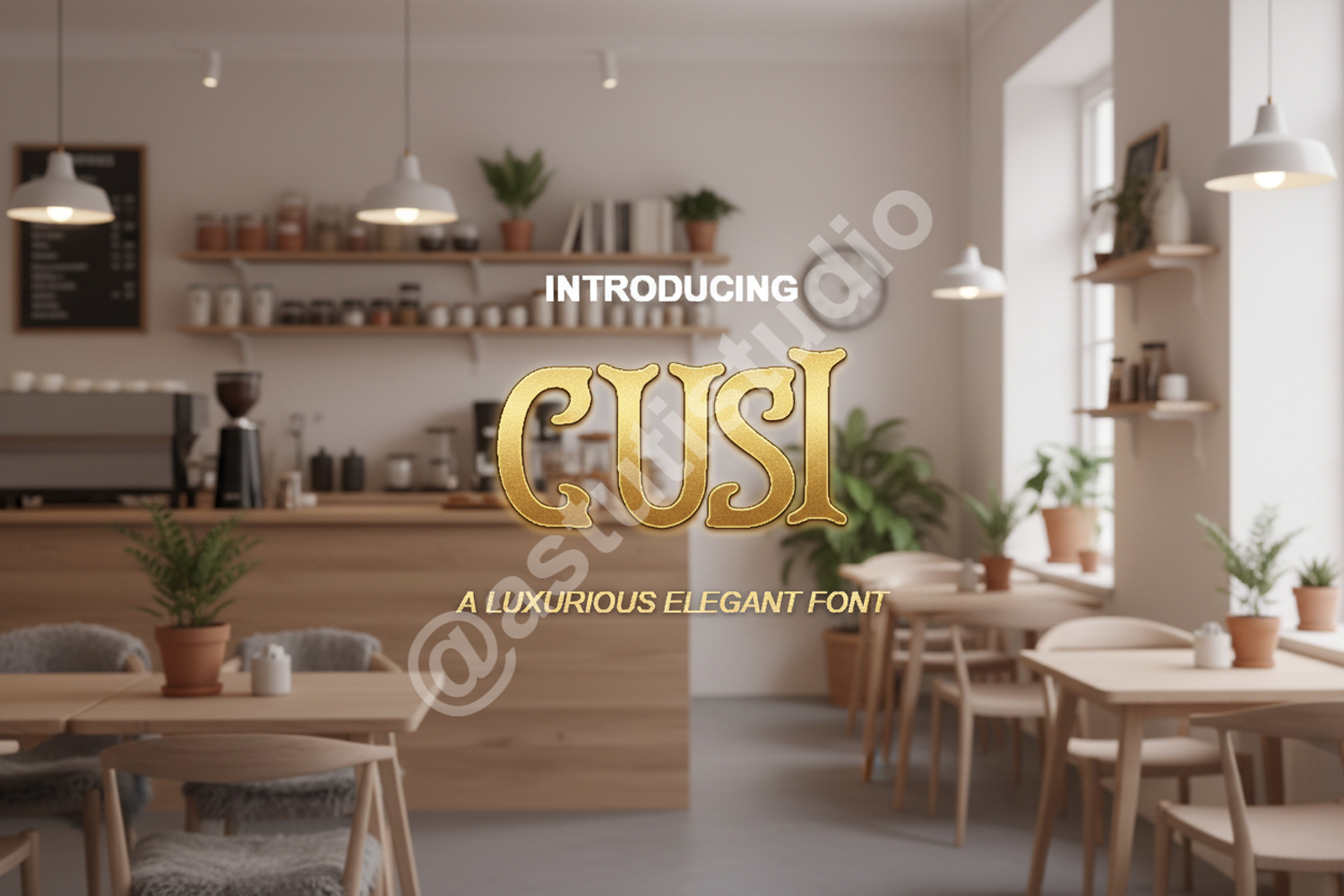
Cusi - Modern Sophisticated Serif Font
Cusi
Experience the perfect blend of contemporary style and timeless elegance with Cusi. This premium serif typeface was meticulously crafted to bring a touch of luxury to your creative projects. With its clean lines and unique character shapes, Cusi stands out as a versatile choice for designers seeking high-end results and professional polish.
- Branding and Identity: Create memorable logos and cohesive brand guidelines.
- Wedding Stationery: Perfect for elegant invitations, save-the-dates, and menus.
- Editorial Design: Ideal for sophisticated magazine layouts and striking headlines.
- Social Media: Elevate your digital presence with stylish quotes and promotional graphics.
- Product Packaging: Add a premium feel to luxury product labels and boxes.